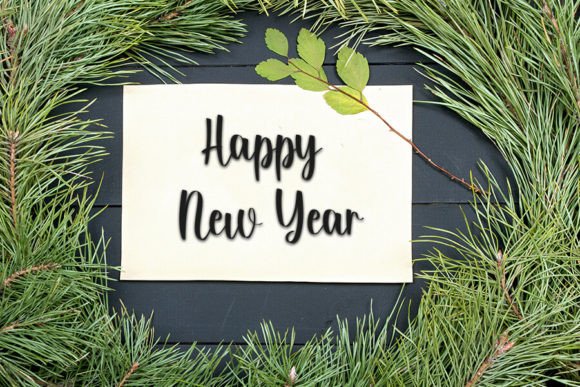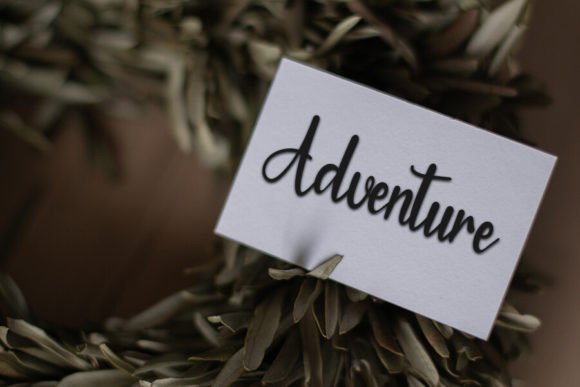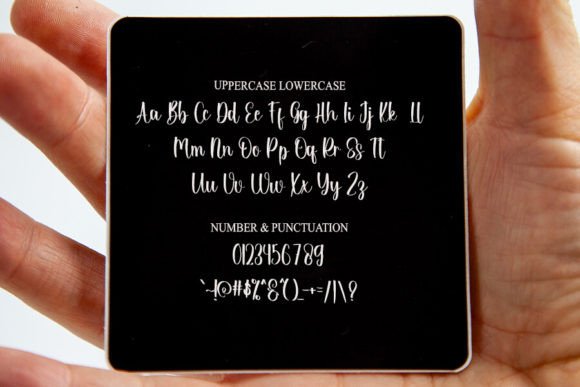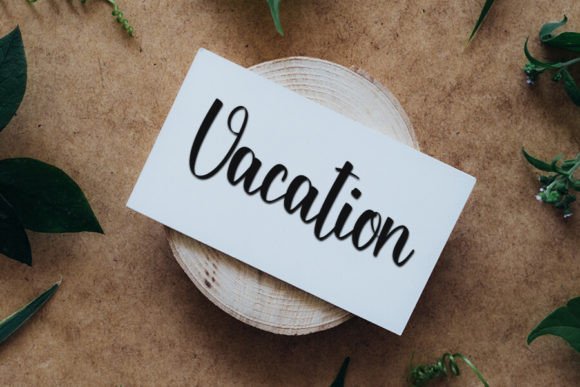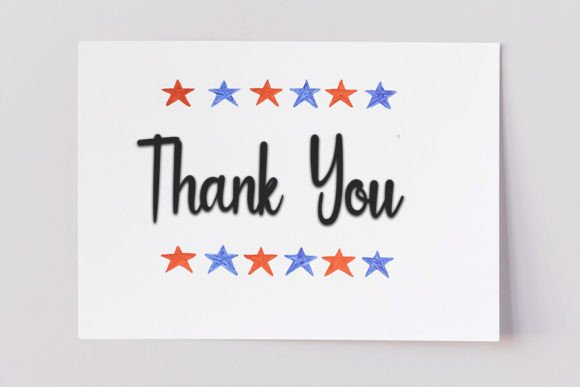
Introducing Branda Font: The Perfect Holiday Companion for Designers and Crafters
The holiday season is upon us, and with it comes the need for designs that capture the spirit of joy, cheer, and festivity. If you’re a designer or crafter looking for the perfect typeface to add a touch of magic to your holiday-themed projects, look no further than Branda Font. This delightful font is specifically designed to bring a cheerful and nostalgic atmosphere to your words, making it an ideal choice for greeting cards, gift labels, and other holiday-themed designs.
A Festive and Happy Typeface
Branda Font is a festive and happy typeface that embodies the essence of the holiday season. Its decorative elements and unique flair make it a standout from more traditional fonts, adding a touch of charm to any design. Whether you’re creating holiday greeting cards, gift tags, or festive posters, Branda Font is sure to bring a smile to the faces of those who see your designs.
So, what makes Branda Font so well-suited for holiday-themed projects? For starters, its playful and cheerful design is guaranteed to put you and your audience in the holiday spirit. Additionally, the font’s decorative elements and unique ligatures make it perfect for adding a touch of whimsy and personality to your designs. Whether you’re a professional designer or a crafter looking to add a personal touch to your holiday gifts, Branda Font is the perfect choice.
PUA Coded for Easy Access to Glyphs and Ligatures
One of the best things about Branda Font is that it’s PUA (Private Use Area) coded, which means you can easily access all the amazing glyphs and ligatures without any hassle. This makes it simple to add a touch of personality to your designs, even if you’re not a skilled typographer. With Branda Font, you can focus on creating beautiful designs without getting bogged down in complicated font editing software.
What You Can Create with Branda Font
So, what can you create with Branda Font? The possibilities are endless! Here are a few ideas to get you started:
- Holiday greeting cards for friends and family
- Gift labels and tags for presents
- Festive posters and flyers for holiday events
- Social media graphics and posts for the holiday season
- Custom holiday gift wrap and packaging
Why Choose Branda Font?
So, why choose Branda Font over other holiday-themed fonts? Here are just a few reasons:
- Unique and decorative design that’s sure to stand out
- PUA coded for easy access to glyphs and ligatures
- Perfect for a wide range of holiday-themed projects
If you’re looking for a font that captures the spirit of the holiday season, look no further than Branda Font. With its festive and happy design, decorative elements, and unique flair, it’s the perfect choice for designers and crafters alike. Whether you’re creating holiday greeting cards, gift labels, or festive posters, Branda Font is sure to bring a touch of charm and personality to your designs. So why wait? Download Branda Font today and start creating your own holiday magic!